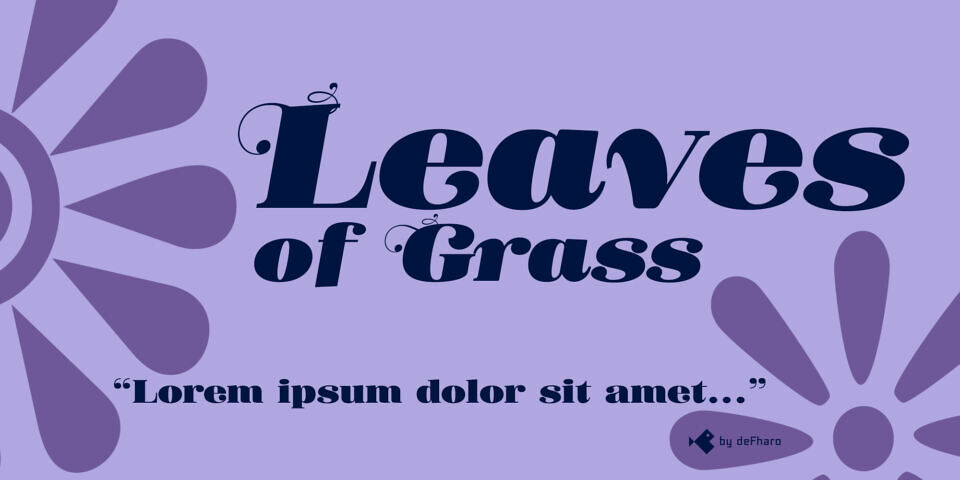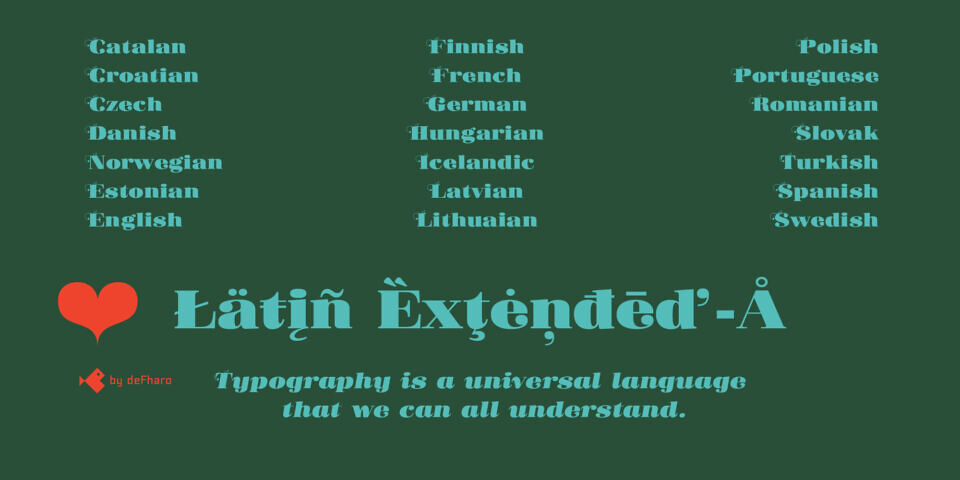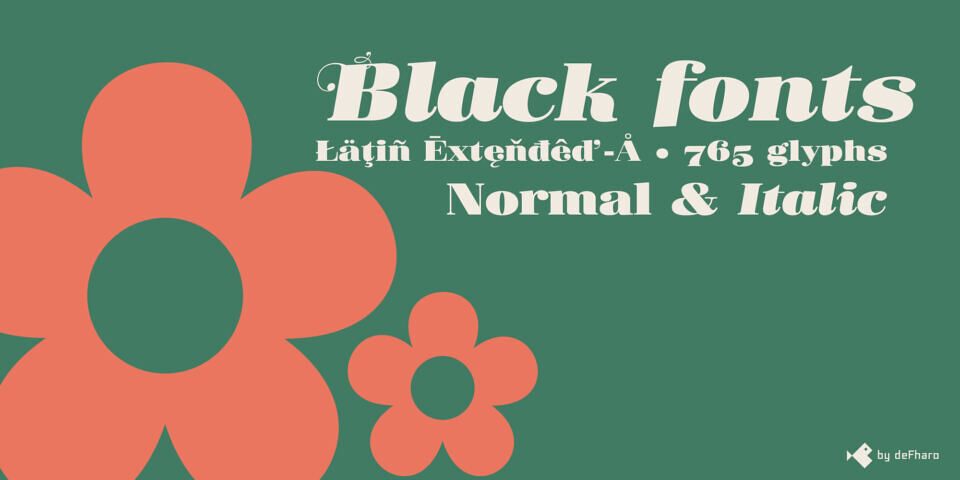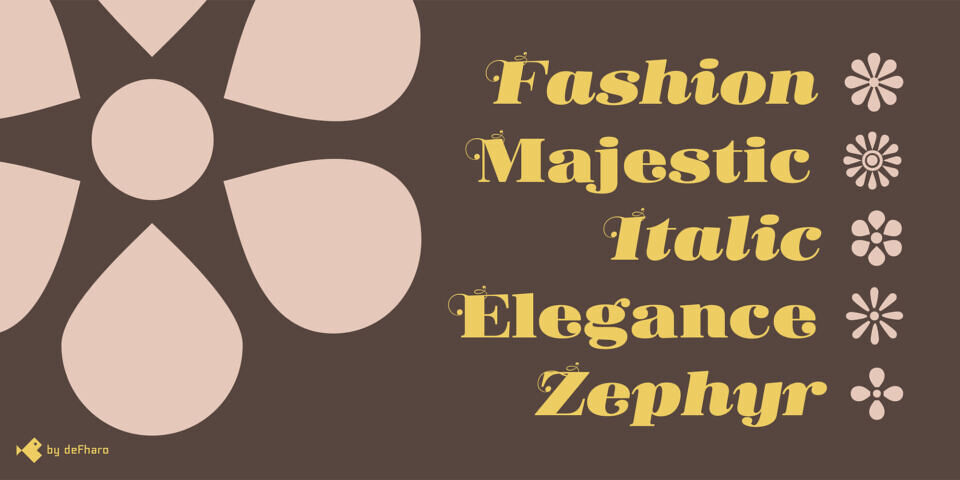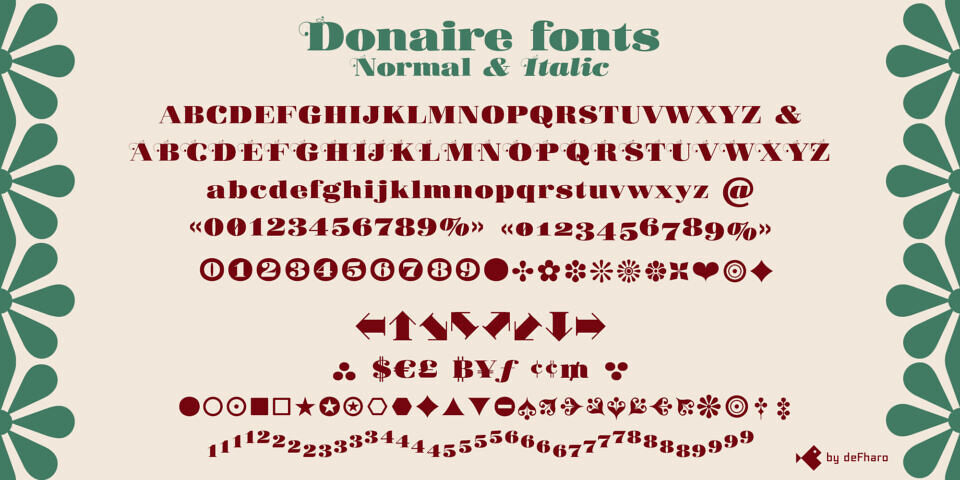
Donaire is a modern reinterpretation of 18th-century Didone typefaces, blending thick vertical strokes with fine horizontals, transitional serifs, and teardrop terminals. This fat-face display font offers Roman and Italic styles, featuring 724–740 glyphs, 186 alternates, and Latin Extended-A support.
Its refined elegance and strong contrast make it ideal for impactful headlines, branding, and editorial design. Donaire includes advanced OpenType features like ligatures, swashes, ornaments, and titling alternates, providing versatility for both classic and contemporary projects.